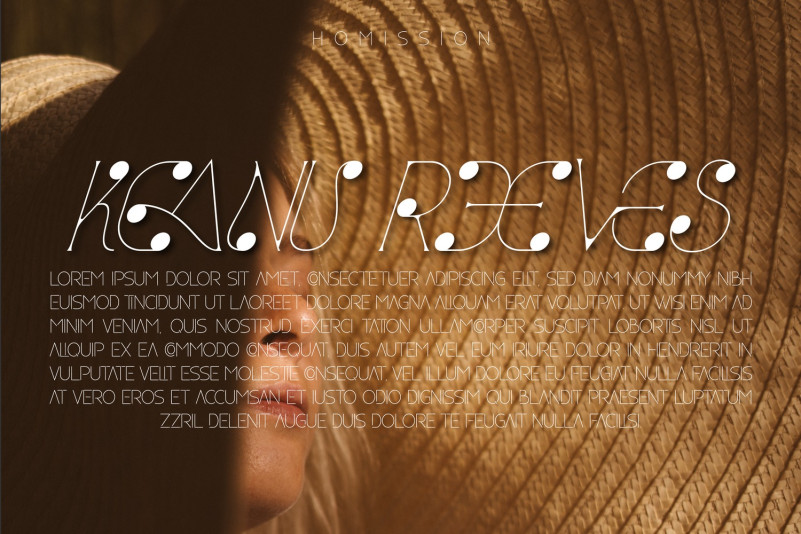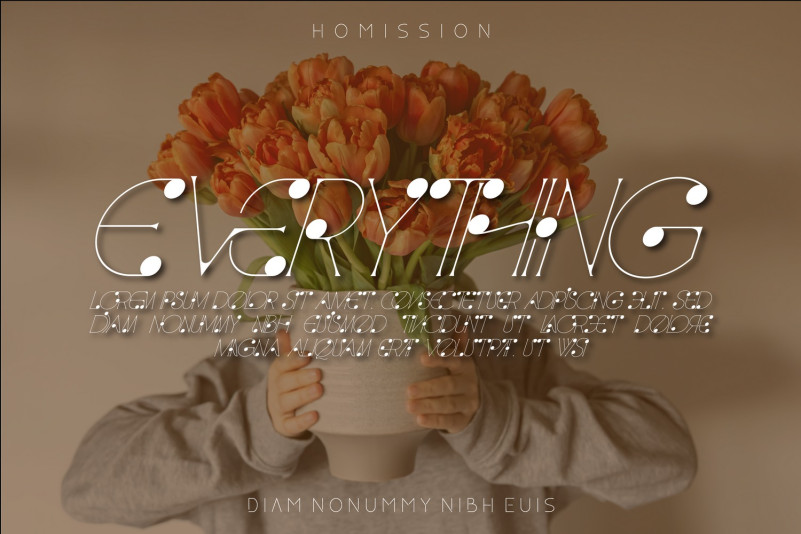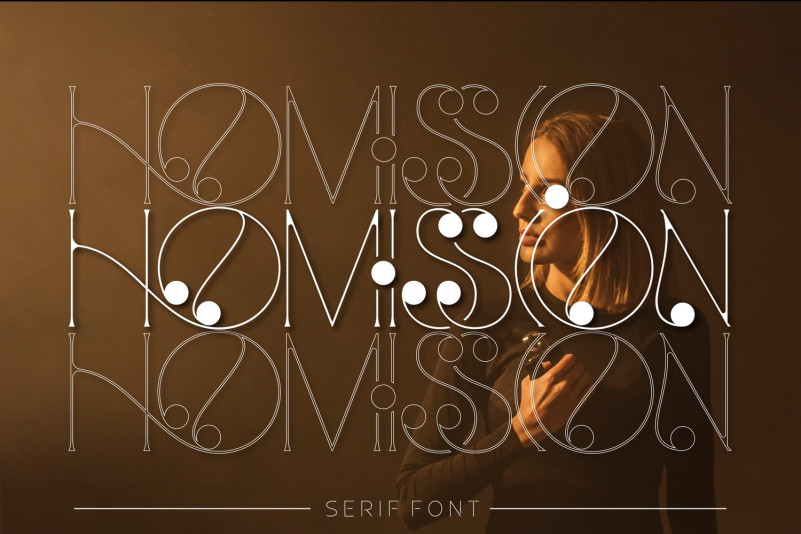
Homission Font
Homission Font is a bold display typeface, it’s a playful decorative display font inspired by doodle style and hand-drawn lettering. This font is a typeface that cannot be unnoticed. It is bright, wicked, and screaming! This typeface will make your work noticeable and will fit perfectly in both poster and printing design, as well as in web design.
To make it look more unique, here we prepared some ligatures:
AC AD AL AN AR AS AT AU AV BE CA CE CH CO CT DE DI EA EC ED EE EL EM EN EP ER ES ET FE FO FR GE HA HE HI HO IC IE IL IN IO IR IS IT JU KE LA LE LI LL LO LY MA ME MI NC ND NE NG NO NS NT OC OF OM ON OO OP OR OT OU OW PR RA RD RE RI RO RS RT SE SH SI SO SS ST TA TE TH TI TO TR TT UM UN UR VE WI WO